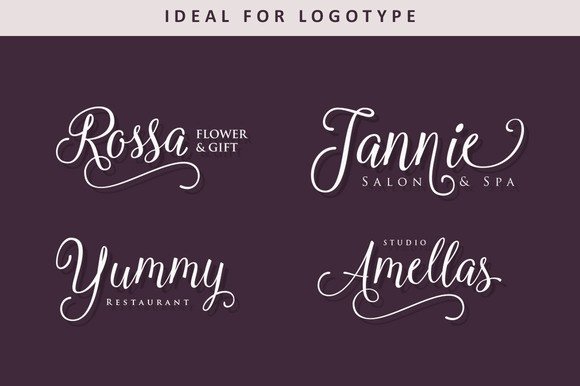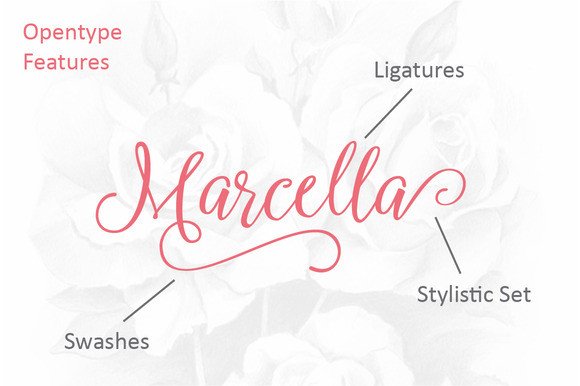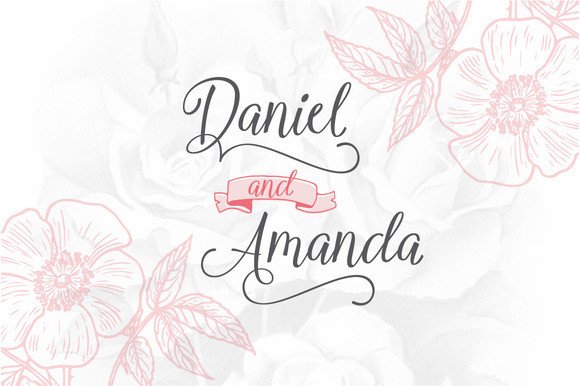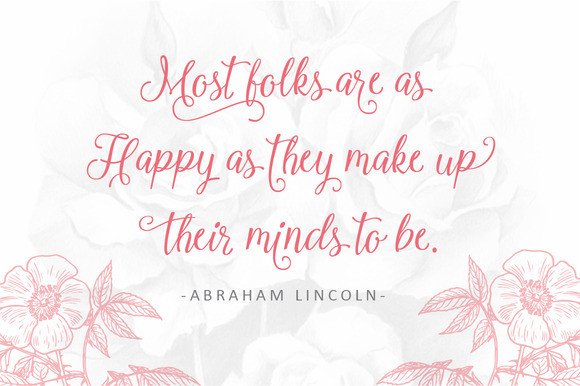
About Marcella Font
The Marcella Script is a set of beautiful stylish handwritten fonts. These calligraphy-style fonts deliver an elegant and classic touch.
The Marcella Script has 356 glyphs and 175 alternate characters.
You will receive a total of 8 individual fonts, each one filled with unique swirls and swashes. You can easily switch between the fonts to create unique designs.